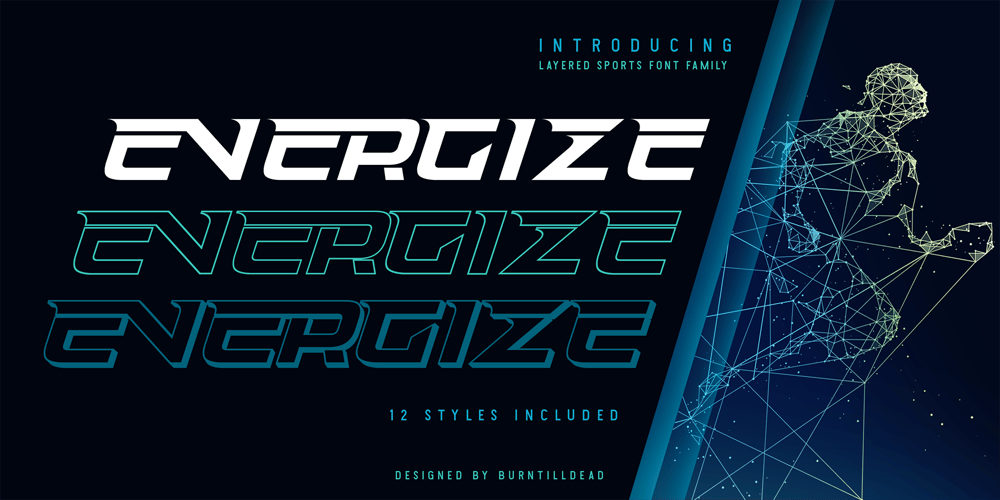
Energize Font Family was designed by Eric Kurniawan and published by Burntilldead. Energize contains 12 styles and family package options. Energize is a sports font family with 3 weight (thin, regular, bold) & various styles of outline – extrude. The Italic styles bring another vibe of speed. This font family is built to bring active looks, racing, workouts, and other athletic activities. Its shape is rooted in the the competitive sports spirit. The Idea is to bring the dynamic shape mixed with weight , elevating athletic performance through progressive innovation of font, so whenever people see the font they think of hard work and sports.